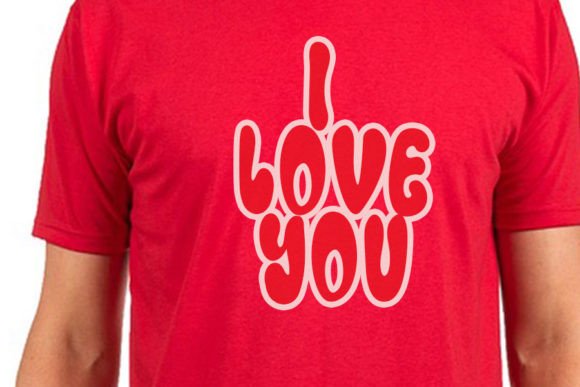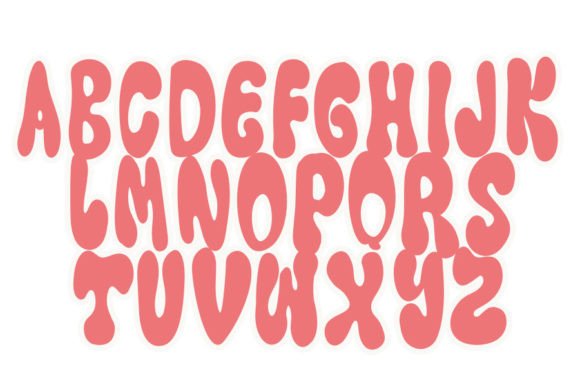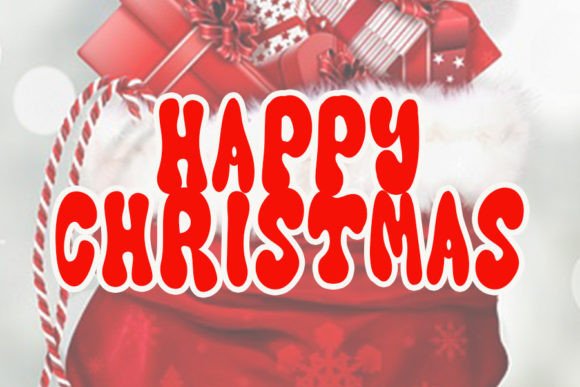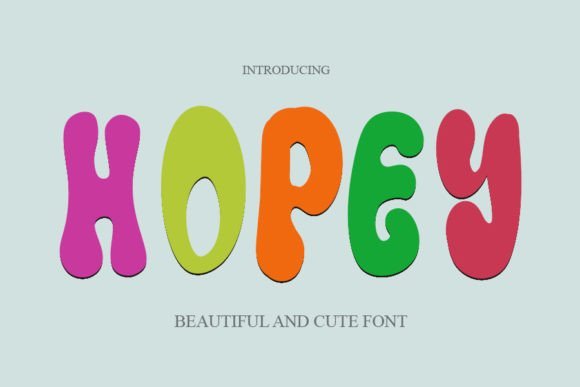
Introduction to Hopey Font
Hopey is a fun and friendly display font.
Its retro, groovy vibe is suitable for a wide spectrum of applications .
Key Features of Hopey Font
Why Choose Hopey Font?